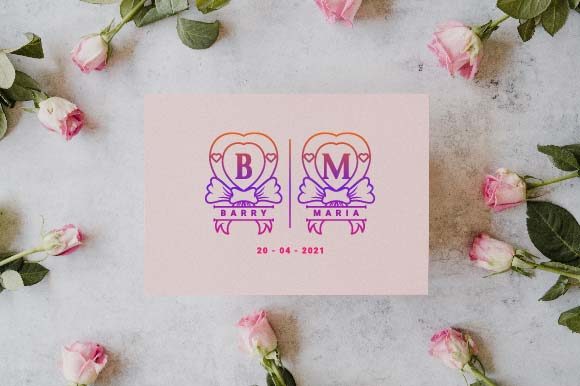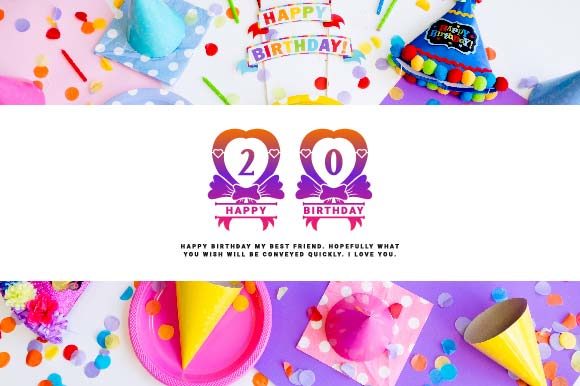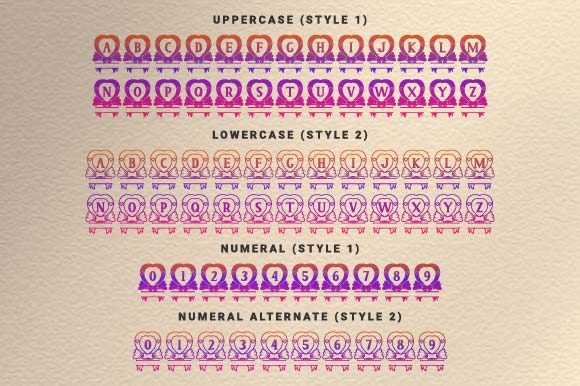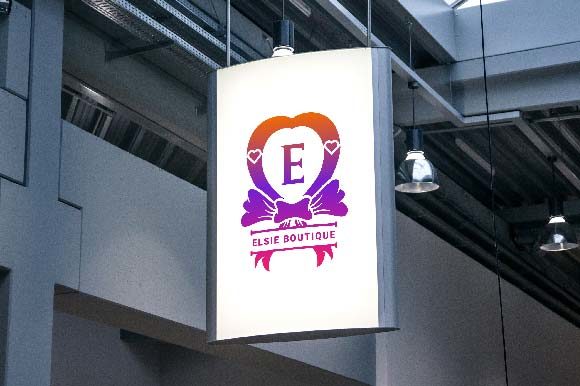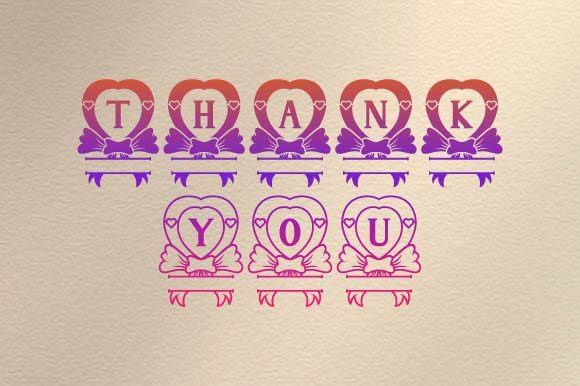
Introducing Alexatie Font: The Sweet Decorative Font for Your Creative Projects
Are you a designer, crafter, or DIY enthusiast looking for a unique and charming font to elevate your creative projects? Look no further than Alexatie Font, a sweet decorative font that’s sure to capture your heart. With its authentic feel and versatile design, Alexatie Font is perfect for creating stunning wedding invitations, beautiful stationery art, eye-catching social media posts, and adorable greeting cards.
The Charm of Alexatie Font
Alexatie Font is a handcrafted font that exudes a sense of warmth and personality. Its decorative design features intricate details and a touch of elegance, making it perfect for projects that require a personal and sophisticated touch. The font’s authentic feel is reminiscent of traditional calligraphy, but with a modern twist that makes it suitable for a wide range of creative applications.
Uses for Alexatie Font
Alexatie Font is an incredibly versatile font that can be used for various creative projects, including:
• Wedding Invitations: Create beautiful and unique wedding invitations that set the tone for a special day. Alexatie Font’s elegant design and romantic feel make it perfect for wedding stationery.
• Stationery Art: Add a personal touch to your stationery art with Alexatie Font. Use it to create gorgeous greeting cards, thank-you cards, and other paper crafts.
• Social Media Posts: Make your social media posts stand out with Alexatie Font. Use it to create eye-catching graphics, quotes, and promotional materials that grab attention.
• Greeting Cards: Create adorable greeting cards for special occasions, such as birthdays, anniversaries, and holidays. Alexatie Font’s playful design and charming feel make it perfect for handmade cards.
Why Choose Alexatie Font?
• Unique Design: Alexatie Font features a unique and distinctive design that’s sure to set your projects apart from the rest.
• Elegant and Playful: The font’s elegant design and playful feel make it perfect for a wide range of creative projects, from wedding invitations to social media posts.
• High-Quality: Alexatie Font is a high-quality font that’s designed to produce crisp and clear results, even at small sizes.
Tips for Using Alexatie Font
• Pair with Other Fonts: Experiment with pairing Alexatie Font with other fonts to create interesting and dynamic text combinations.
• Use for Headlines: Use Alexatie Font for headlines and titles to add a touch of elegance and sophistication to your projects.
• Experiment with Colors: Try out different colors and textures to add depth and interest to your projects featuring Alexatie Font.
Alexatie Font is a sweet decorative font that’s sure to capture your heart. With its authentic feel, elegant design, and versatile uses, it’s perfect for designers, crafters, and DIY enthusiasts looking to add a personal touch to their creative projects. Whether you’re creating wedding invitations, stationery art, social media posts, or greeting cards, Alexatie Font is the perfect choice. So why wait? Fall in love with Alexatie Font and start creating stunning projects today!